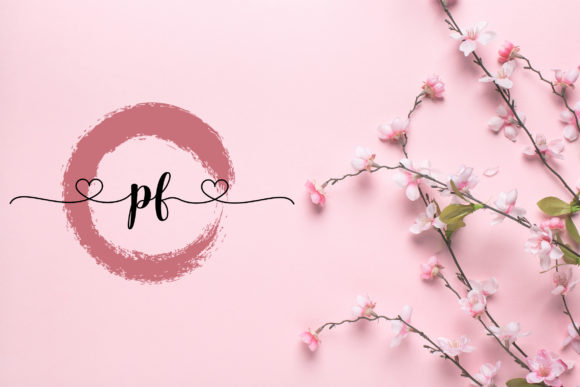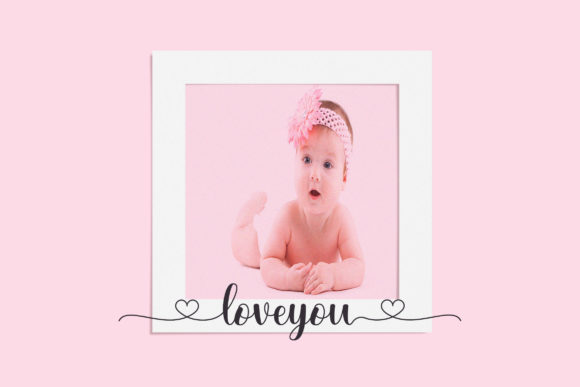
Jennie Lovely Font
db-ku.com - Script & Handwritten -- Jennie Lovely is a unique and elegant handwritten font. It looks beautiful on a variety of designs requiring a personalized style, such as wedding invitations, thank you cards, weddings, greeting cards, logos and so on.